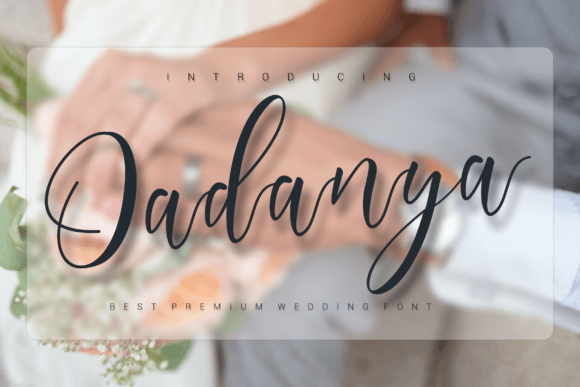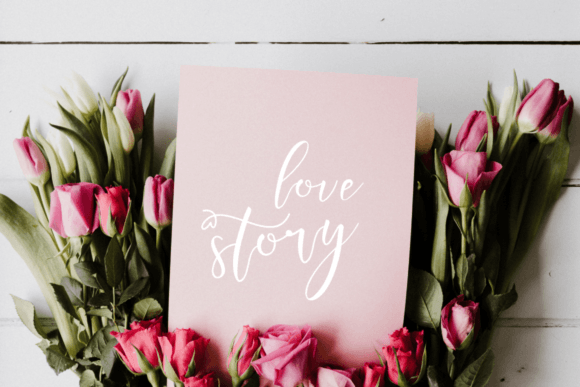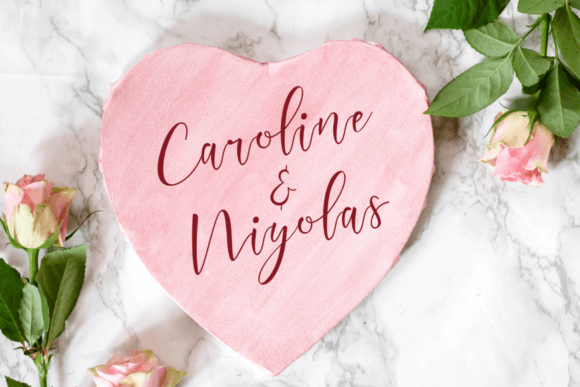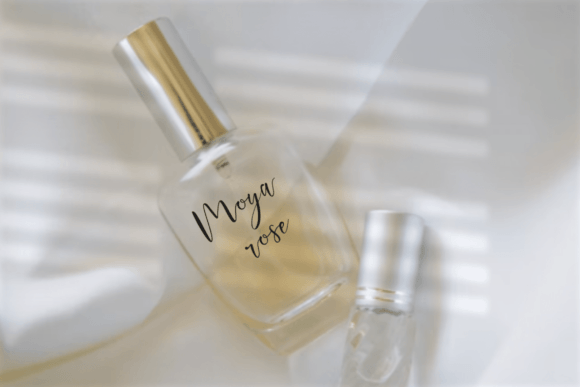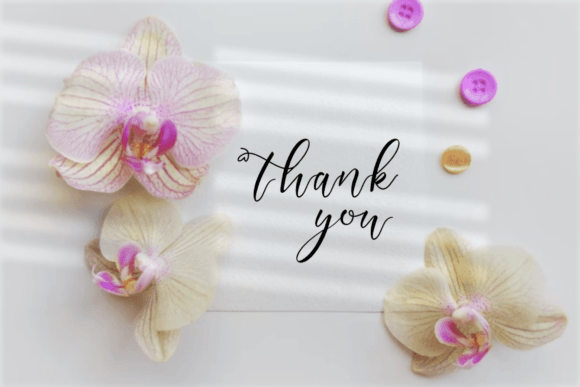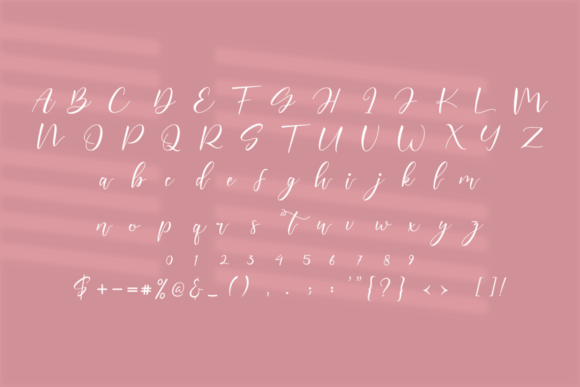
Oadanya Font
Introducing Oadanya Font
The Oadanya Font is a commanding and authentic handwritten typeface celebrated for its bold and impactful appearance. This versatile font is ideally suited for a wide array of branding projects, including logo design, t-shirt printing, export materials, and an assortment of other creative endeavors. With its bold and genuine style, Oadanya is meticulously crafted to make a robust visual statement and excel in a diverse range of contexts.
Why Choose This Typeface?
• Bold and Authentic: Oadanya exudes confidence and authenticity, making it ideal for projects that seek to establish a commanding and unforgettable visual identity.
• Versatile Usage: This font provides a visually captivating choice for various creative endeavors, allowing you to infuse your designs with strength and character.
Applications of Oadanya
• Logo Design: Use this font to create powerful logos that capture attention and communicate trustworthiness.
• T-Shirt Designs: Enhance your t-shirt designs with boldness that commands attention.
• Export Projects: Perfect for adding authenticity and appeal to product labels, packaging, or promotional materials.
The Impact of Using Oadanya
This font elevates your designs by making them visually captivating and memorable. It becomes a reliable tool for designers seeking to create projects that stand out with boldness. Its balanced form ensures your designs are both impactful and captivating.
The Value It Brings
This typeface excels in combining contemporary design aesthetics with classic elegance. By choosing Oadanya, you ensure your designs are not only visually appealing but also sophisticated and unique.
This font is also ideal for various creative projects beyond traditional uses. It can enhance digital designs with its bold flair, making it suitable for websites, brochures, or mobile interfaces. The Oadanya Font adapts well to different screen sizes while maintaining its charm. As design trends evolve, this font remains relevant due to its timeless appeal, balancing style with functionality effectively.